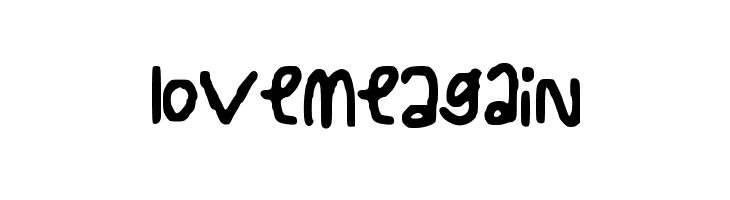
A playful, handwritten font with a whimsical and casual style.
A playful, hand-drawn font with rounded, whimsical characters.
A playful, handwritten font with a whimsical and friendly style.
A playful, rounded font with consistent strokes and slight irregularities for a casual look.
A playful, rounded font with a whimsical and uniform design.